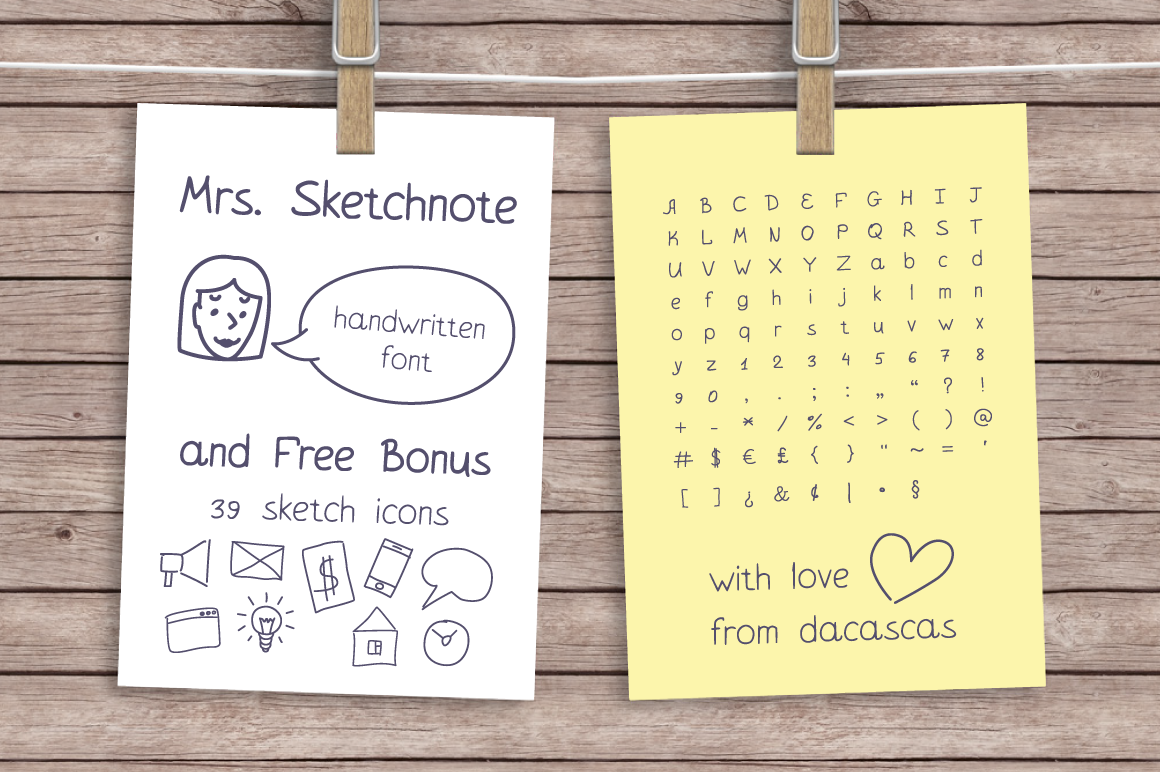
Mrs. Sketchnote Handwritten Font
MISTRESS SKETCHNOTE HANDWRITTEN FONT
And free bonus - 39 vector sketchnote icons.
Mistress Sketchnote Font is perfect for custom logotypes, sketches and doodles, personal diary or sketchnote workbook. Tell your own story using Mistress Sketchnote. And make it a special with free sketch icons.